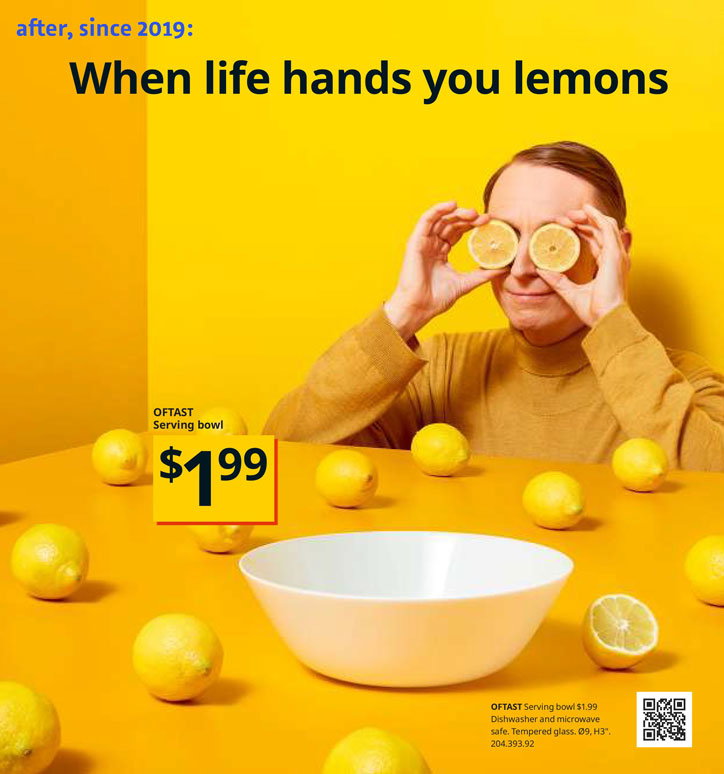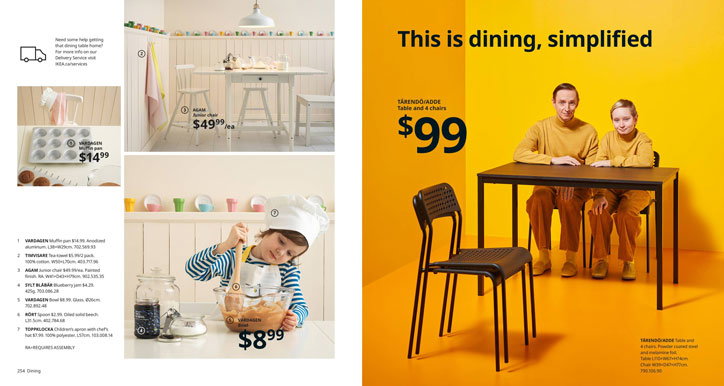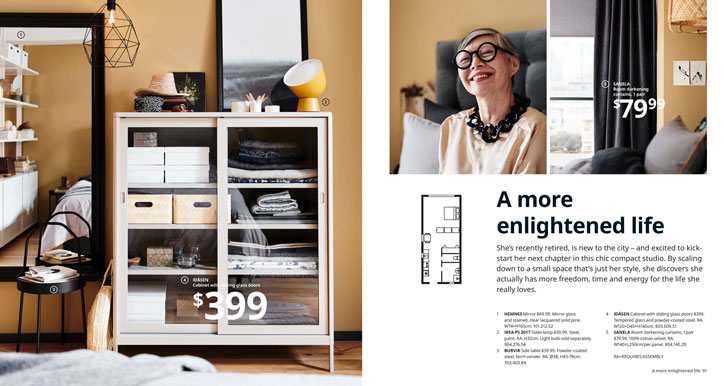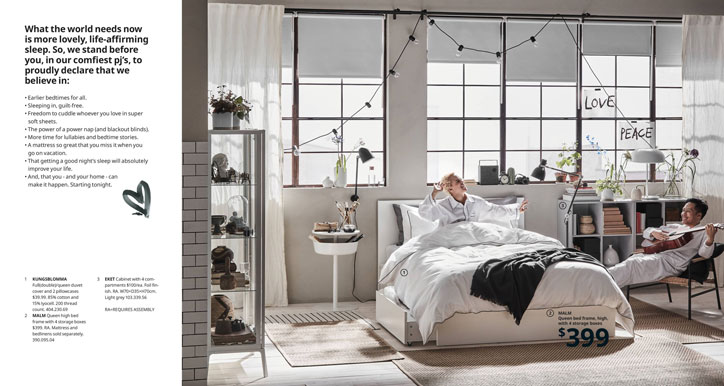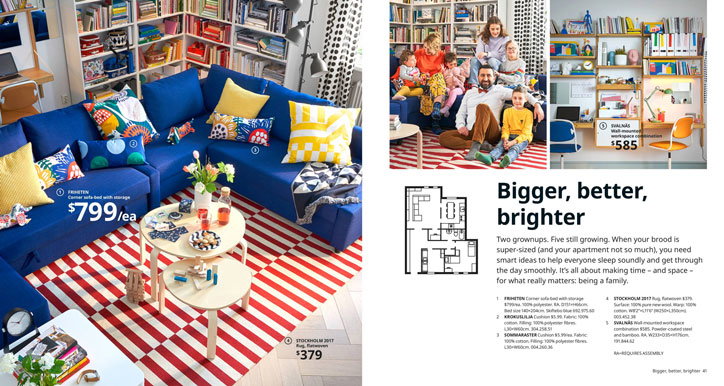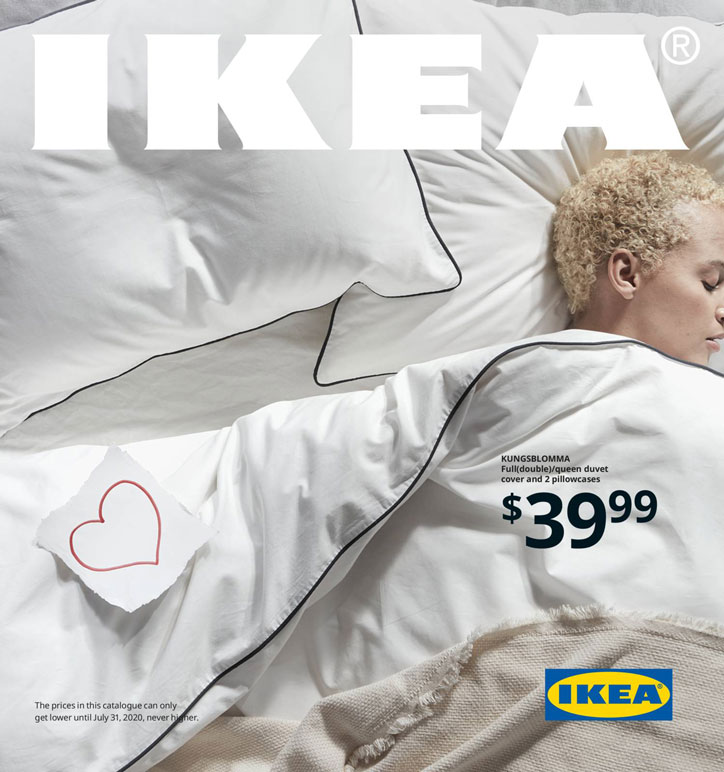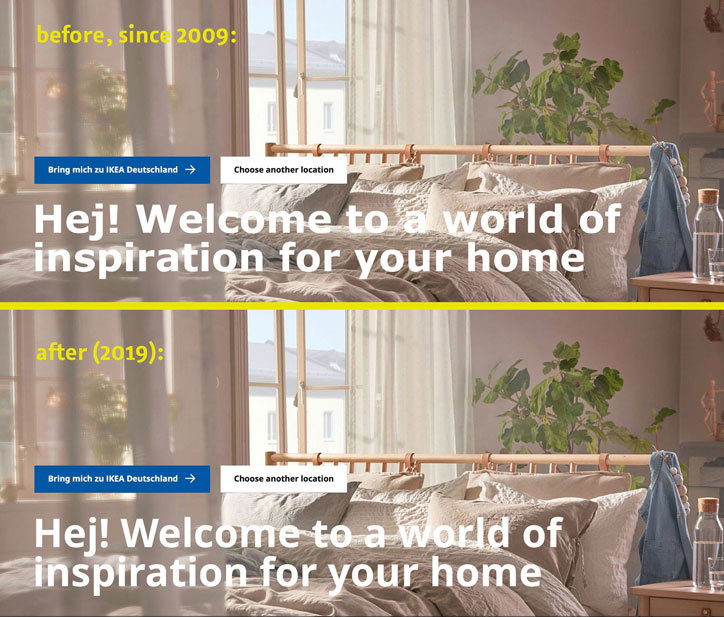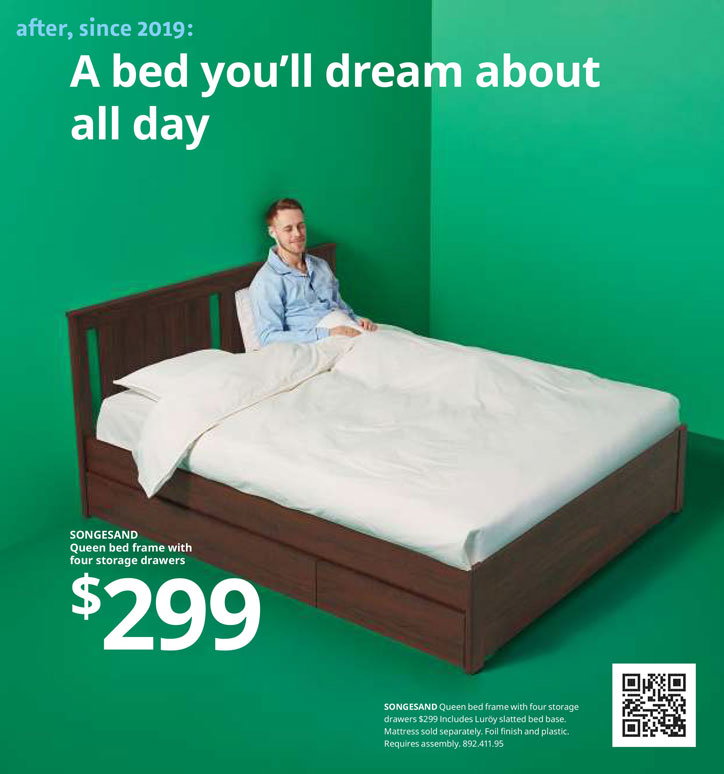
Ikea swaps its brand typeface to Google and Monotype’s Noto
Ikea has swapped its brand typeface to Noto, a collaborative type family from Monotype and Google, after a decade of using Verdana across its visual identity. Before 2009, the company used Ikea Sans – an adaptation of Futura – for 50 years, but moved to Verdana because its own-brand font didn’t include Asian characters.
Its move to Noto is a step further in making Ikea’s typeface truly inclusive of its global markets, as the family encompasses every written language in the world. Noto launched in October 2016 as the result of five years research and development between Google and Monotype, enlisting hundreds of staff and unifying 800 languages and 100 written scripts from Cyrillic to Cherokee. By creating a digital representation of all the scripts in the Unicode standard in many cases, the font was the first ever to serve a particular language community.
The name Noto is short for No Tofu, where tofu is a term often used to describe the little squares that show when a font is not supported by a computer.
Ikea has revealed the new typeface in its 2020 catalogue. On Twitter, Monotype’s Jürgen Siebert shared before-and-after shots of the old and new typefaces in action, commenting: “Trapped in system thinking: After ten years, Ikea says goodbye to Verdana and replaces it with Noto.”